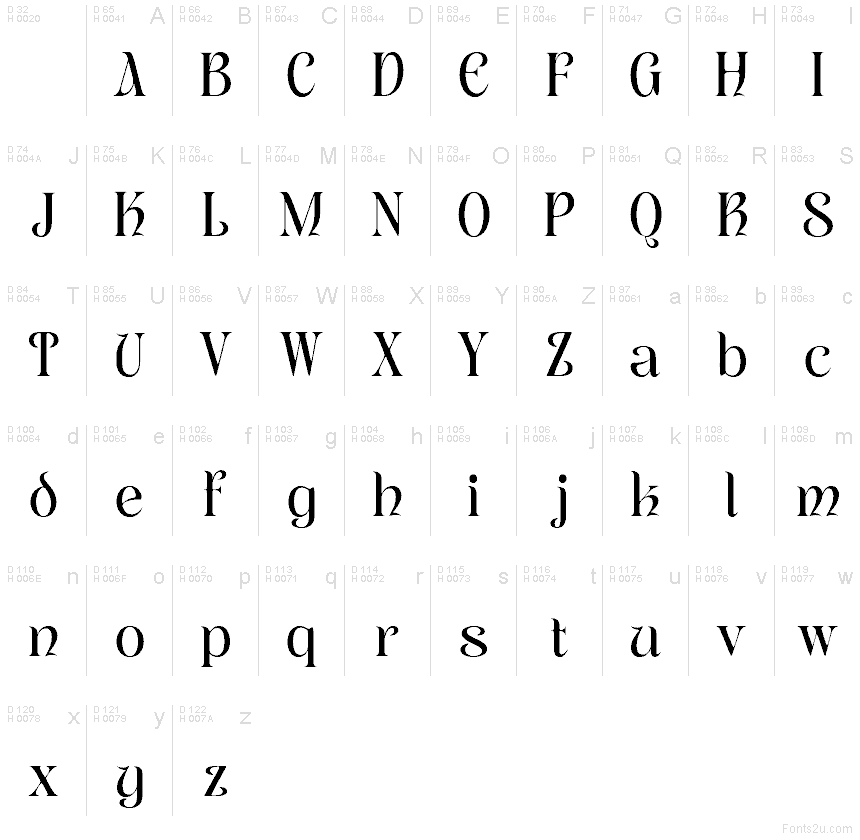
CSHarmonyDrawn-Regular Demo
CS Harmony Drawn font is part of the CS Harmony family by Craft Supply Co. It is a serif vintage-style font featuring elegant and traditional typeface characteristics. Inspired by old typography styles, this free font has a sophisticated, classic appeal with a professional tone. Its attractive and eye-catchy appearance, along with its balanced glyphs make this typeface instantly noticeable.
Use it for editorial designs like magazine and newspaper headlines or in corporate branding including logos, identity design manuals, business presentations, advertisements, social media template designs and more.